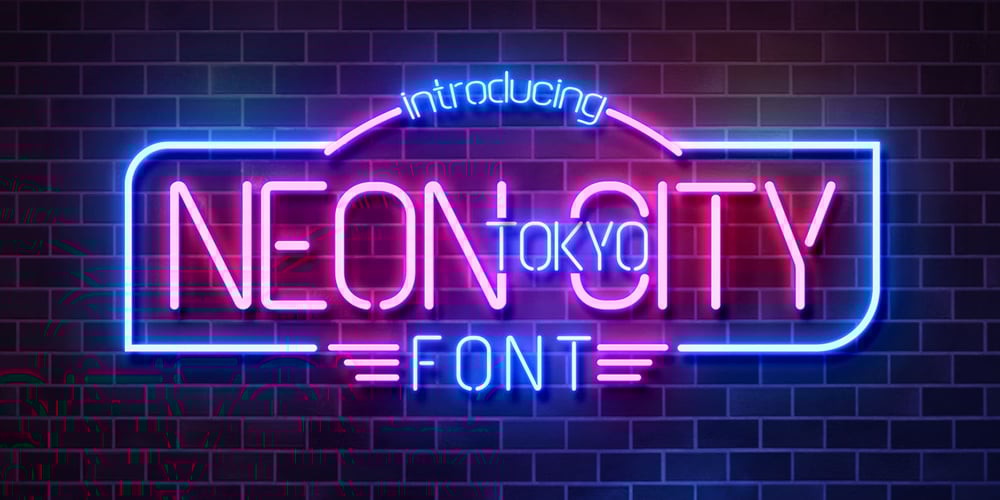
Neon Tokyo City Font Family was designed by Mohammed Lamjidi and published by Beast Designer. Neon Tokyo City contains 1 styles and family package options. Neon Tokyo City Font is a nostalgic and minimalistic display font. Carefully handcrafted to become your favorite, this font will elevate your projects no matter the topic!